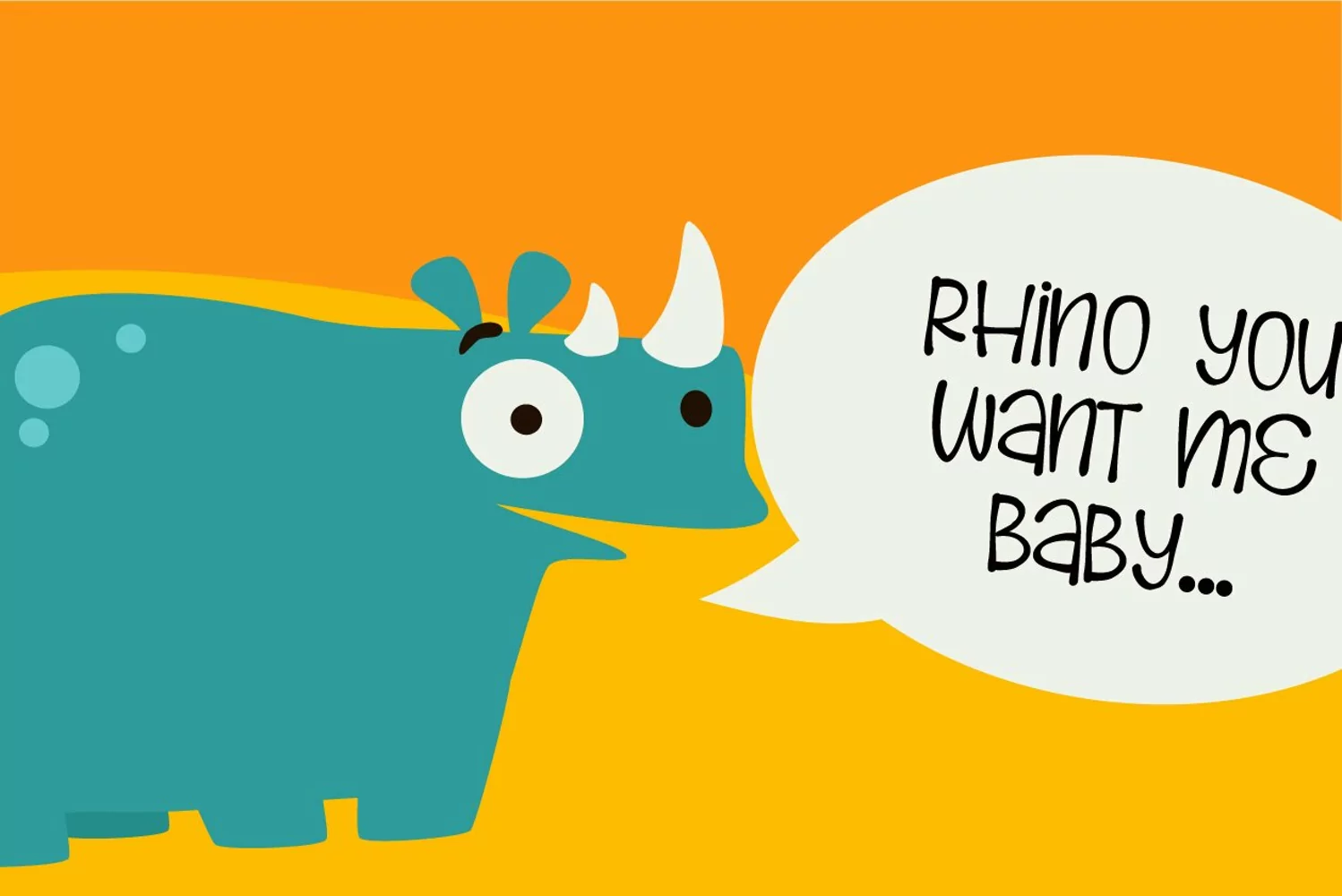
Animal Kingdom is a cute and casual handwritten font. Its playful style makes it perfect for any design you can think of. Add it with confidence to your creative projects, and notice how they capture everyone’s attention! Includes regular and bold.